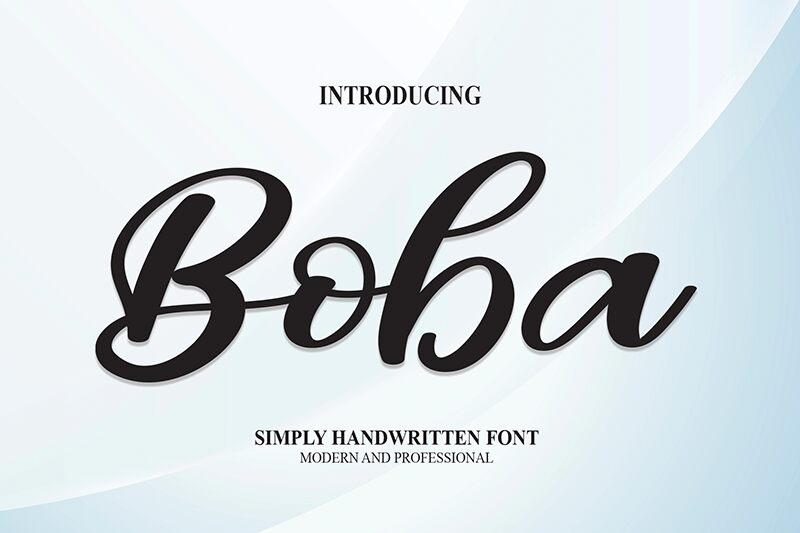
Boba
Boba is a charming semi-bold font designed by scratchones. Its lovely handwritten style is perfect for projects that require a touch of whimsy and personality. The semi-expanded width adds legibility, making it an excellent choice for body text or headings. Boba's playful nature makes it ideal for children's books, greeting cards, and invitations. However, its versatility also makes it suitable for branding, packaging design, and social media graphics. With Boba, you can add a touch of warmth to any project while still maintaining a professional look.
the latest style letters are perfect for wall displays, wedding invitations, social media post logos, advertisements, product packaging, product designs, labels, photography, watermarks, invitations, stationery, and any project that requires taste handwriting.